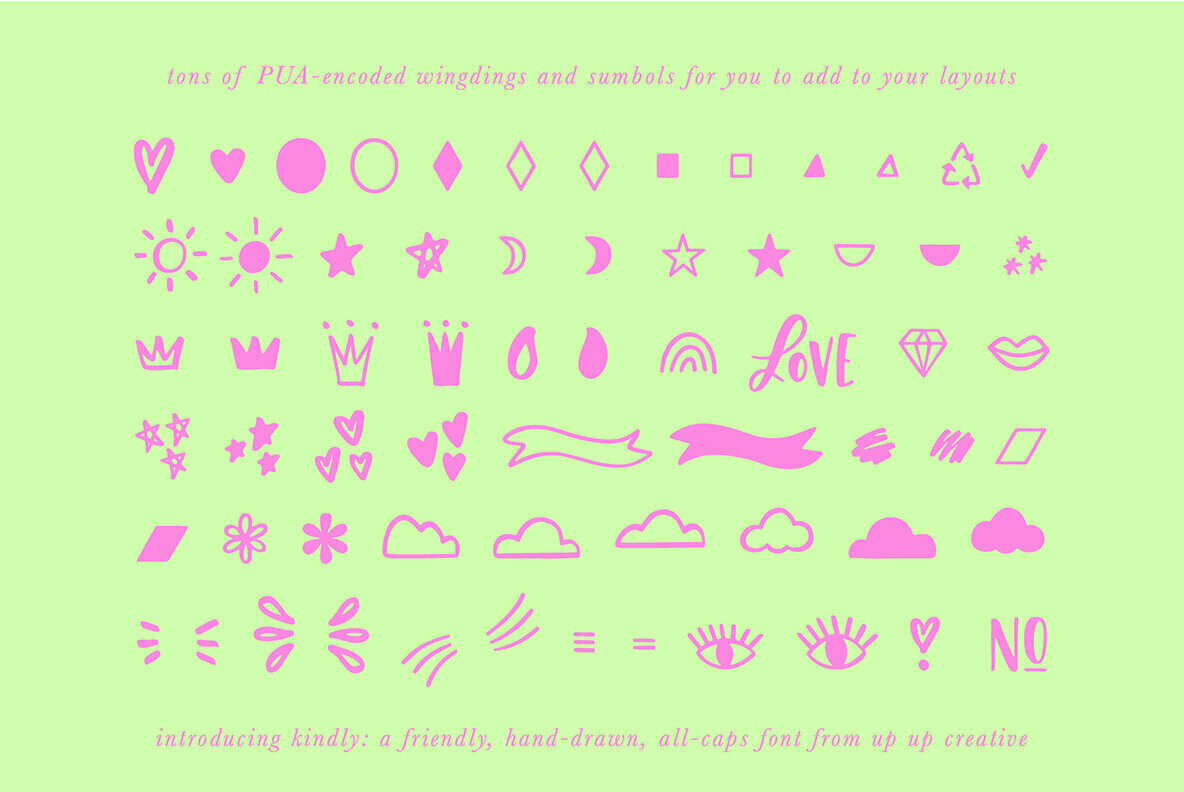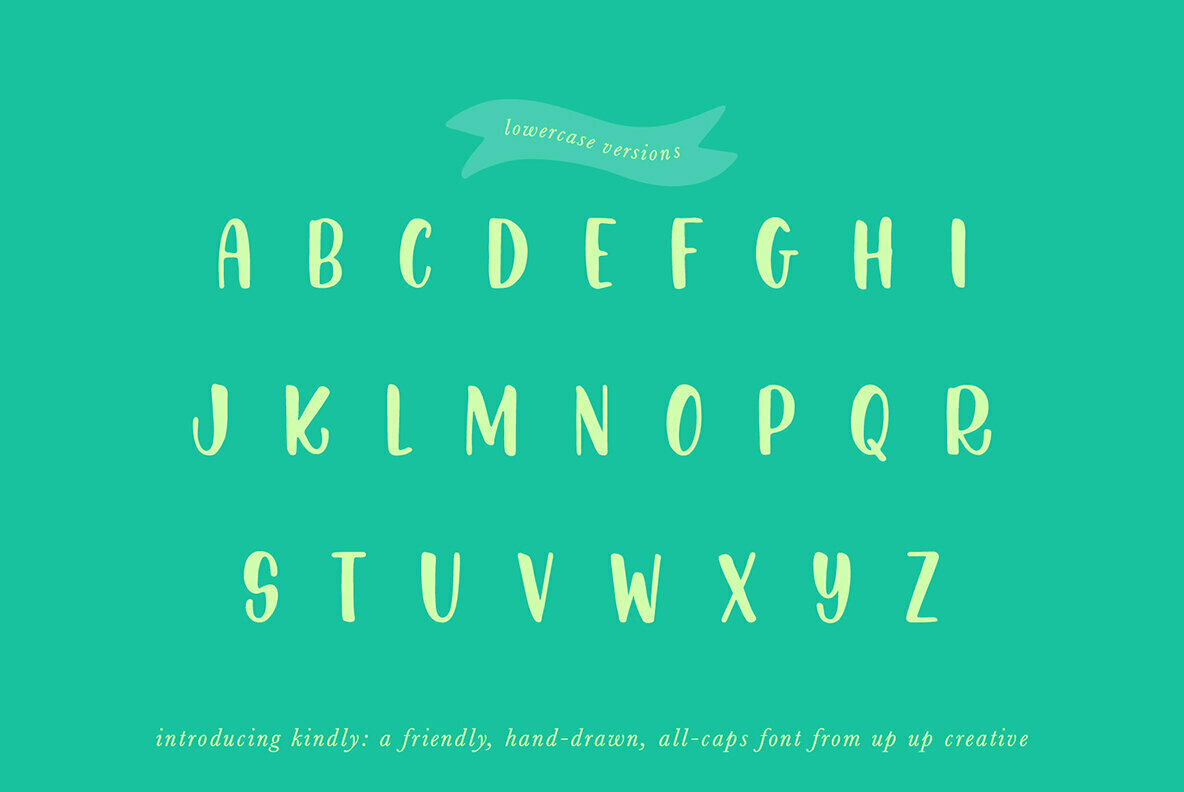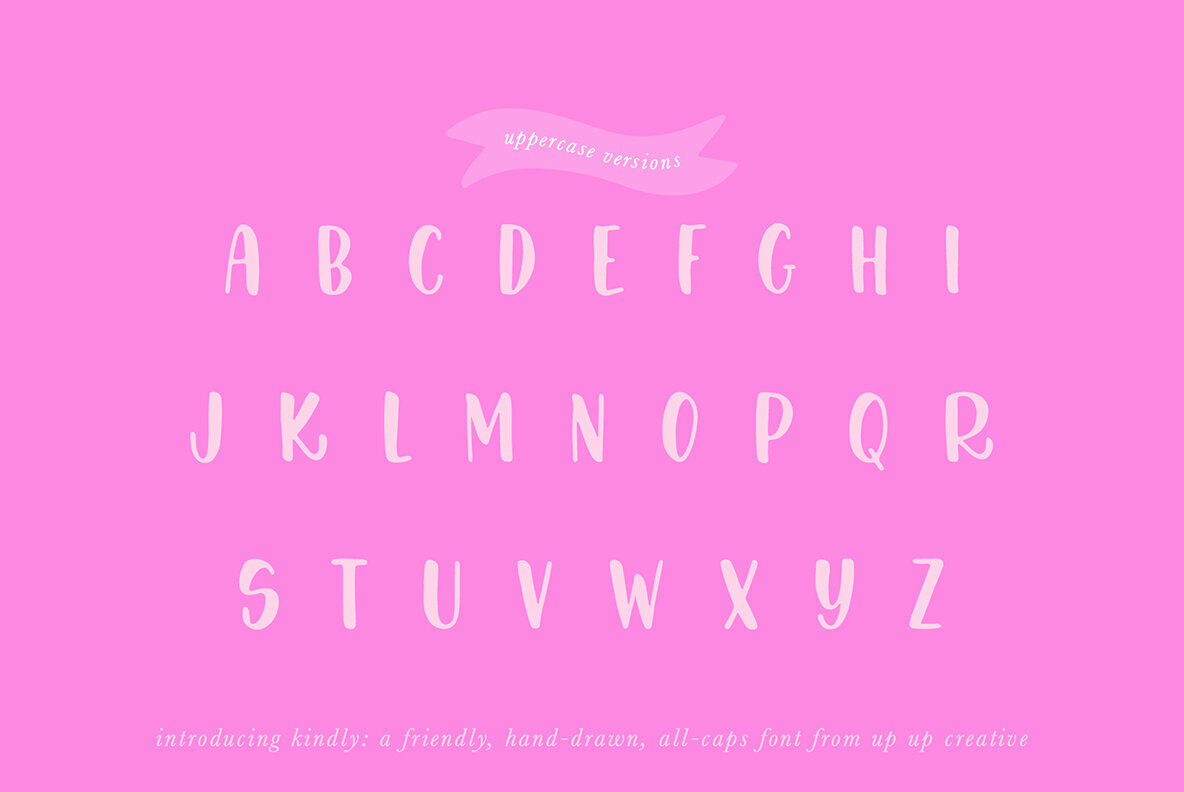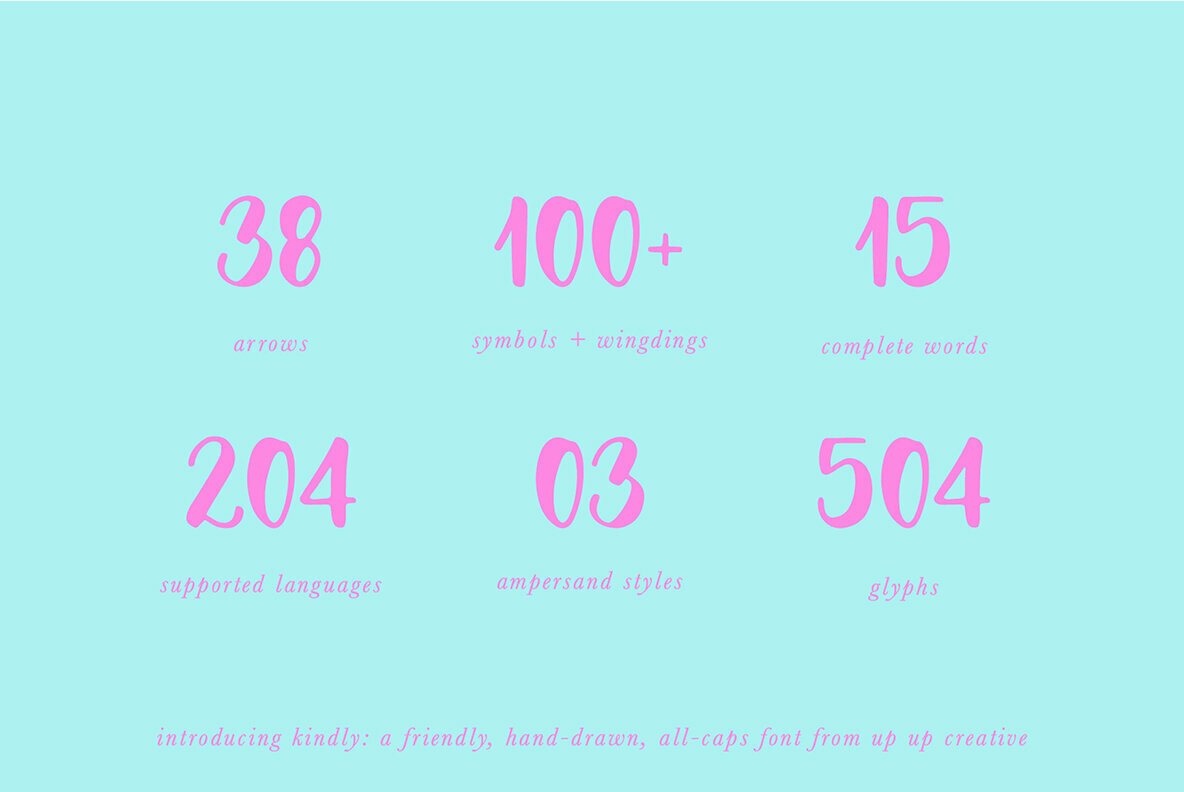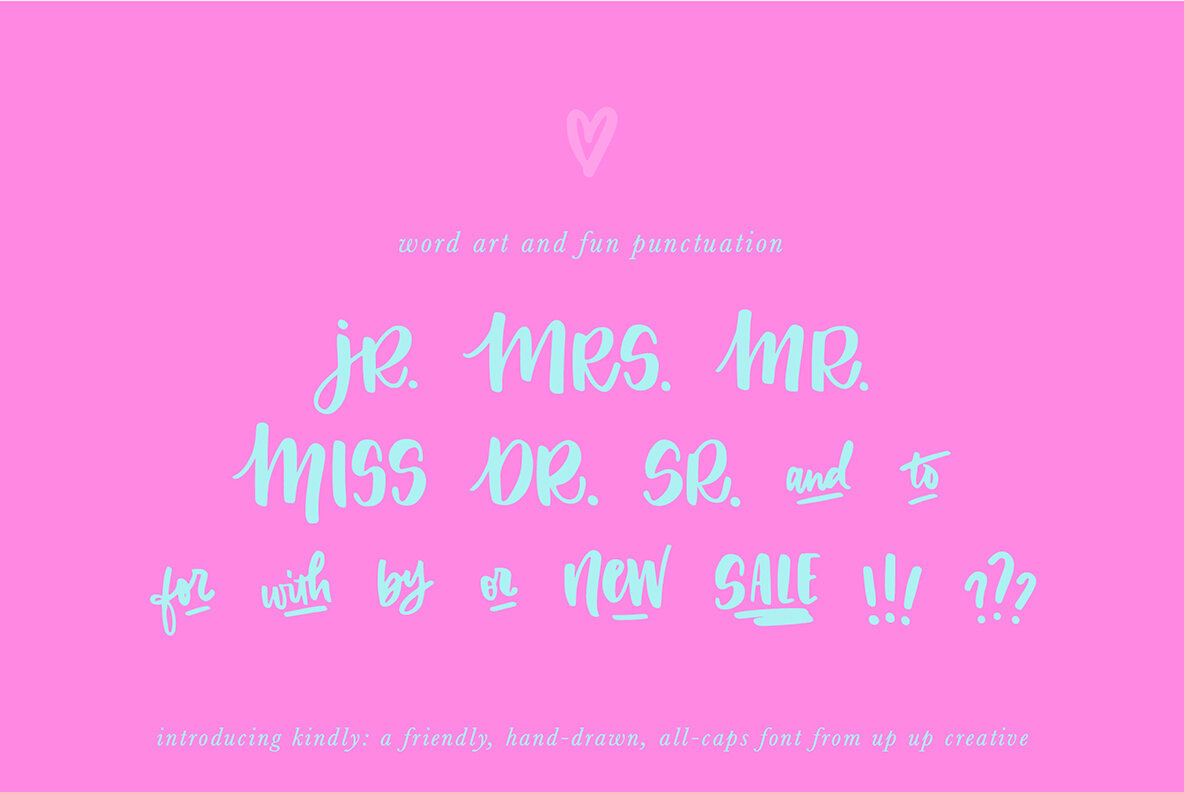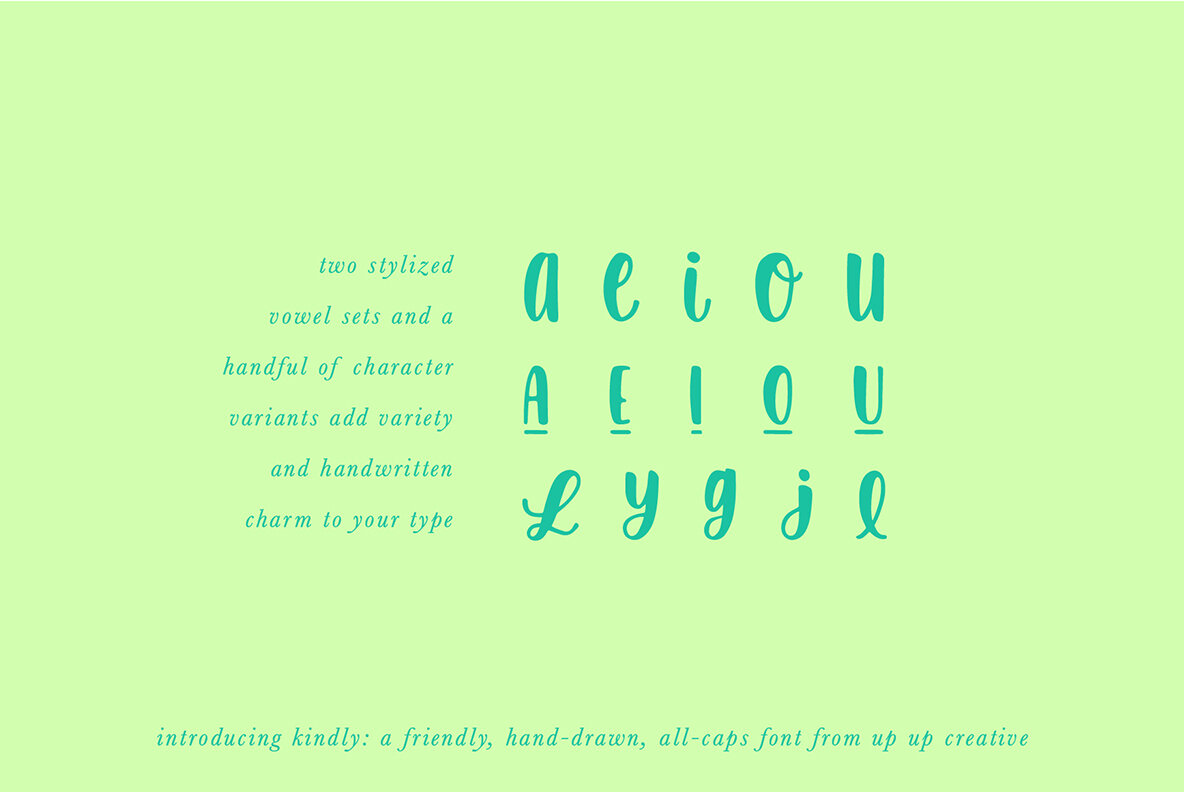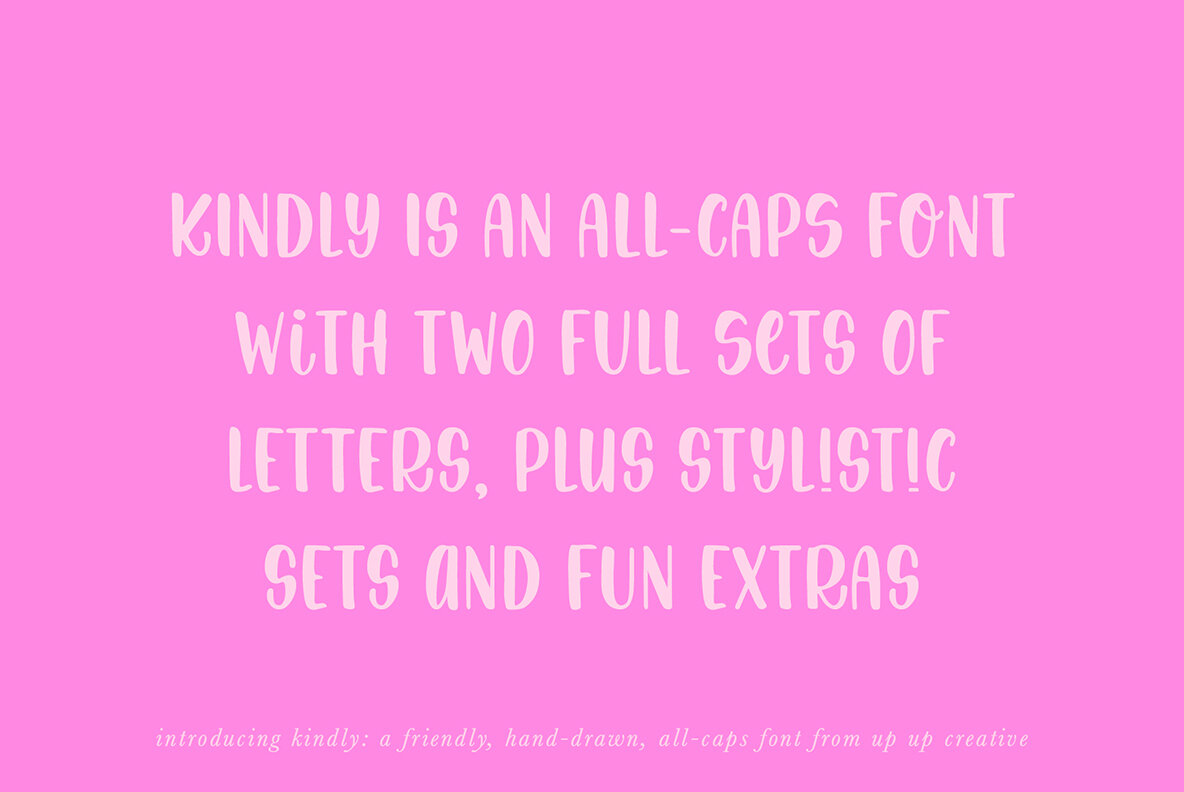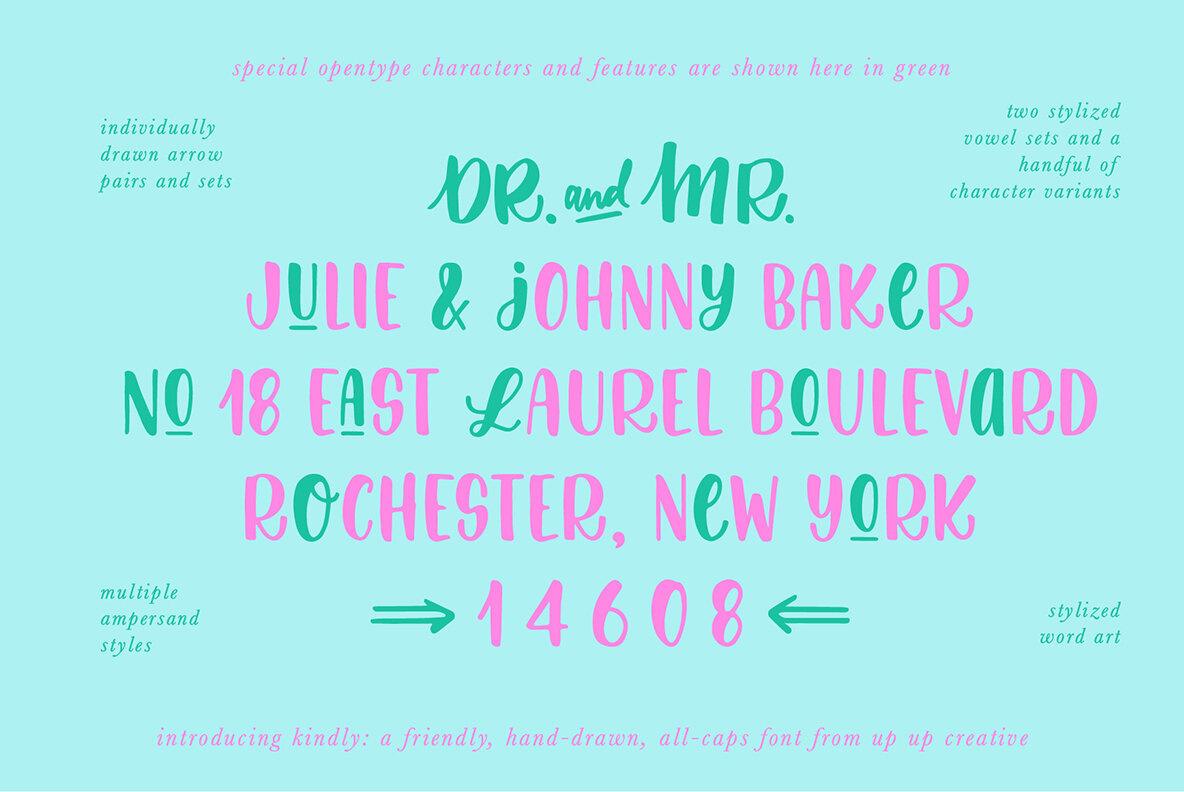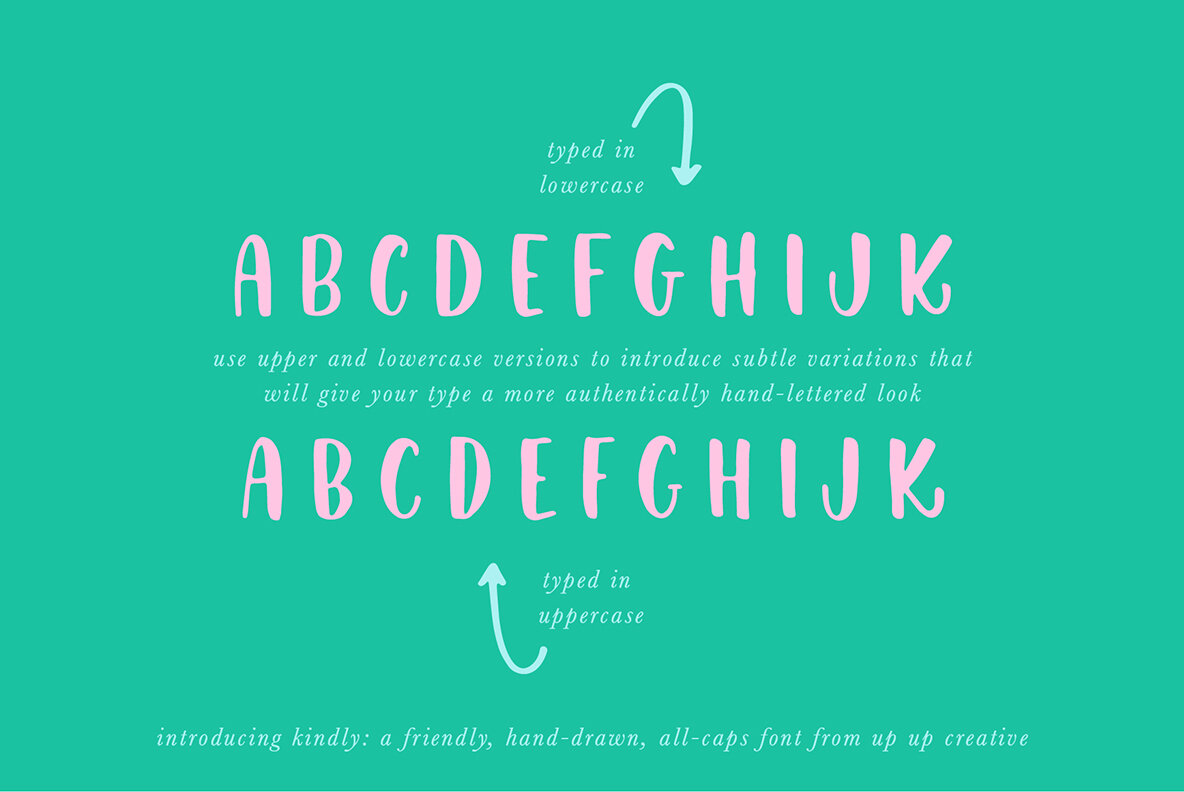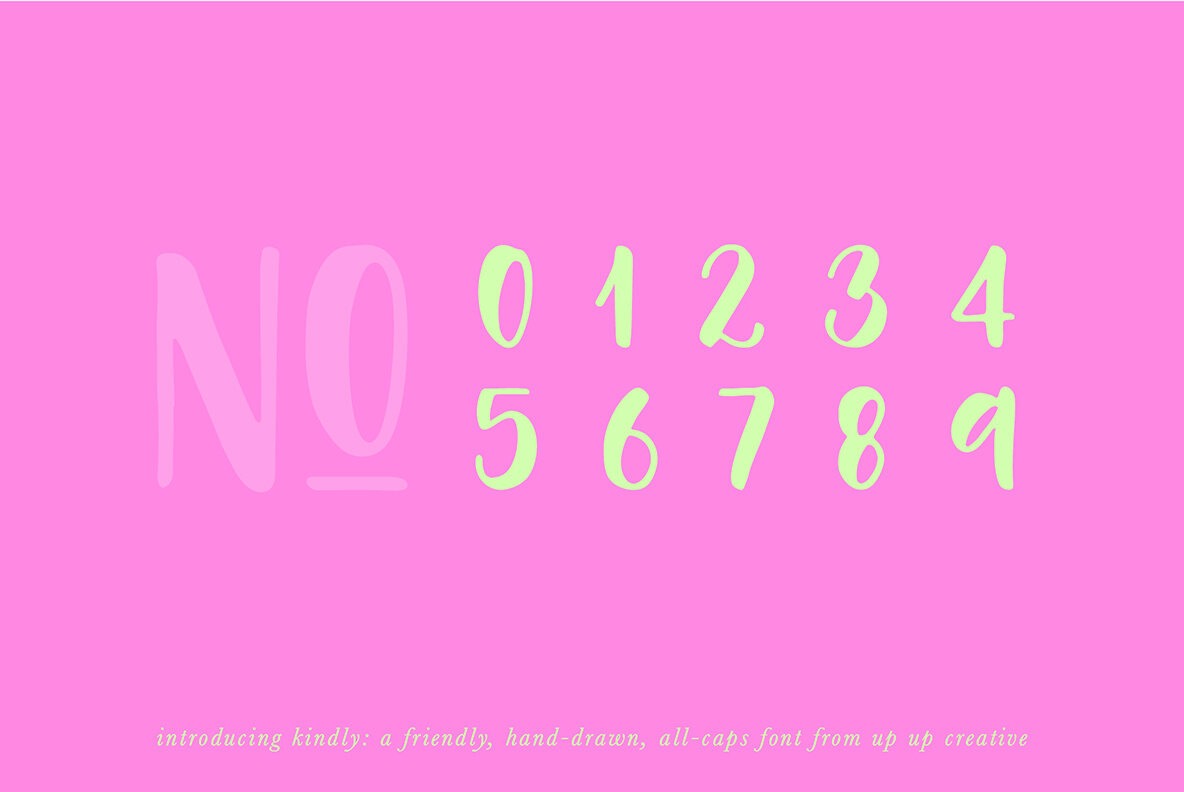
Kindly Font
Kindly Regular
Introducing Kindly, a friendly, hand-drawn, all-caps font with tons of symbols, wingdings, and word art. I’ve been developing this style of lettering for years in my custom design and lettering work, and now I’ve taken the time to turn it into something anyone can use to design with authentic, hand-drawn typography. Kindly is perfect for invitations, design for children, branding, and editorial design and comes with more than 100 extra elements to bring some fun to your layouts.
Kindly comes with 504 glyphs and a smattering of OpenType features, including stylistic sets, character variants, and multilingual support (including multiple currency symbols).